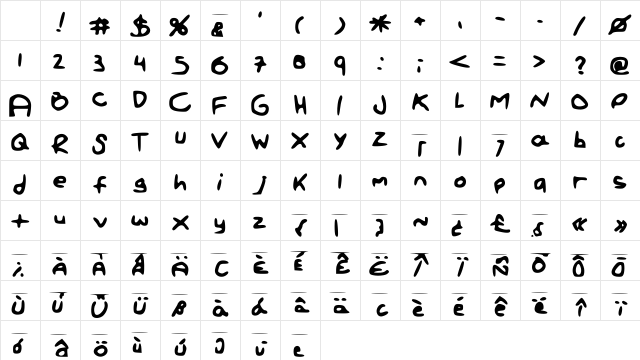
Complete PaintLetters Medium glyph index. Displaying only characters natively supported by PaintLetters Medium font.
PaintLetters is a composed and adaptable typeface that performs quietly and consistently across a wide range of design contexts.